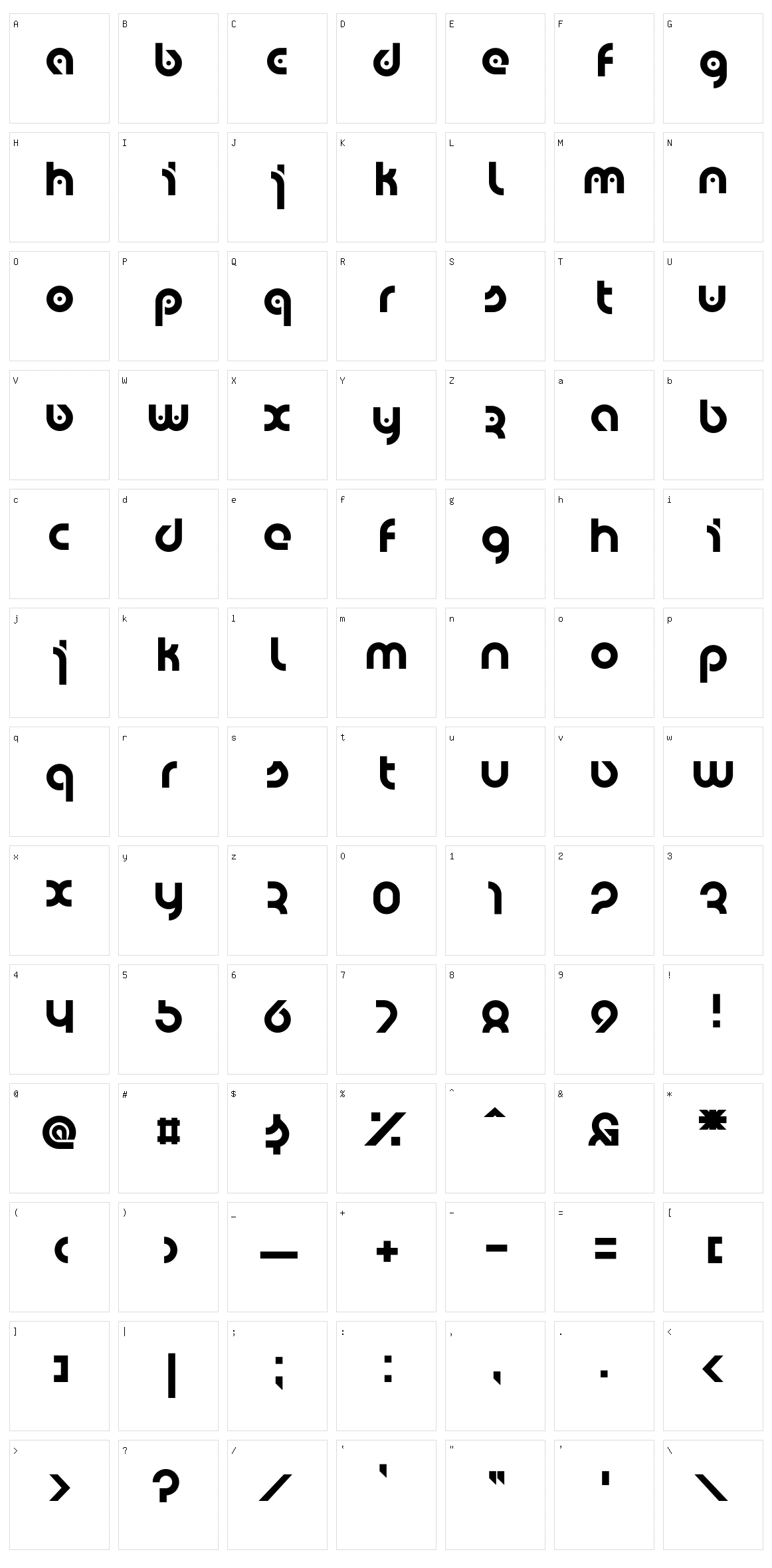
The free font Eyelevation Pro is carefully designed by The Shevchuk, showcasing a thoughtful balance of creativity and usability and falls under the Groovy font style. When you download the ZIP file, it contains only 16.37 KB of font files, making it lightweight and quick to download. Please review the license details below to understand permitted usage and distribution rights. If license information is not available, we recommend using this font for personal projects only or contacting the author directly for commercial usage permissions.